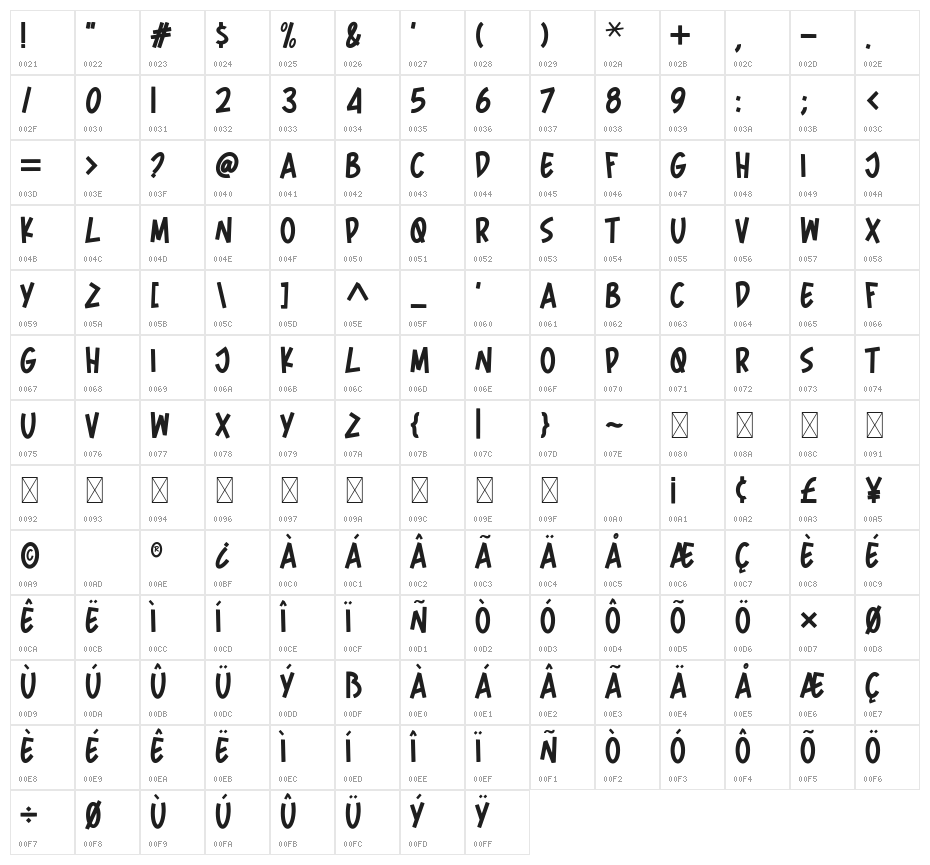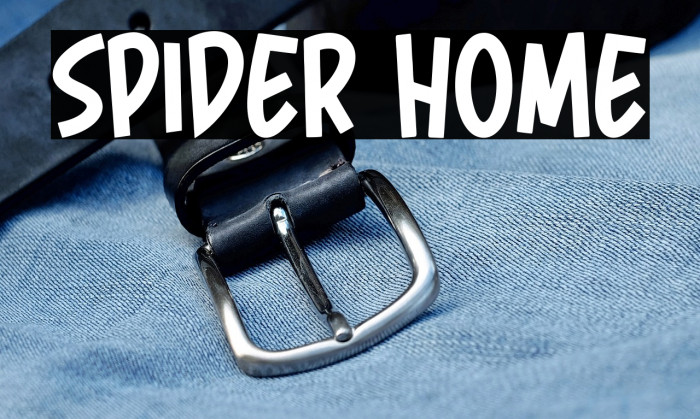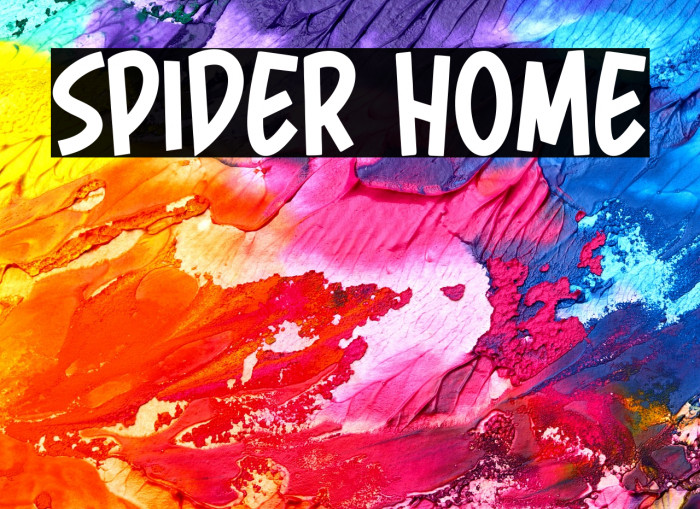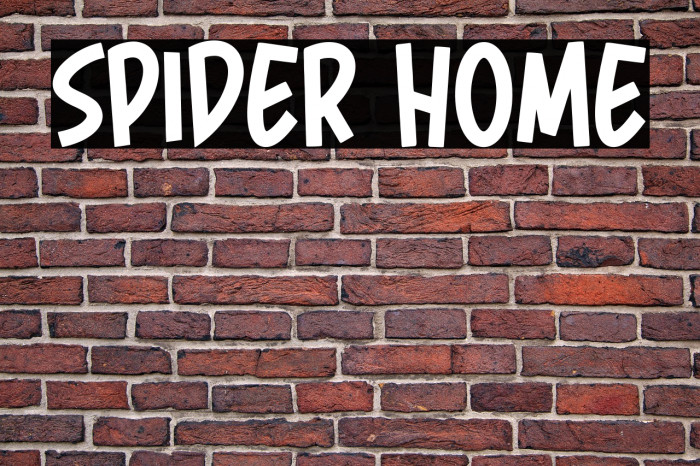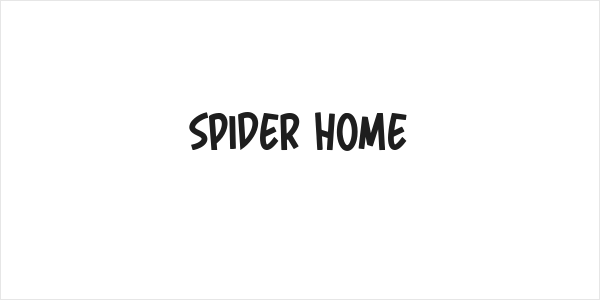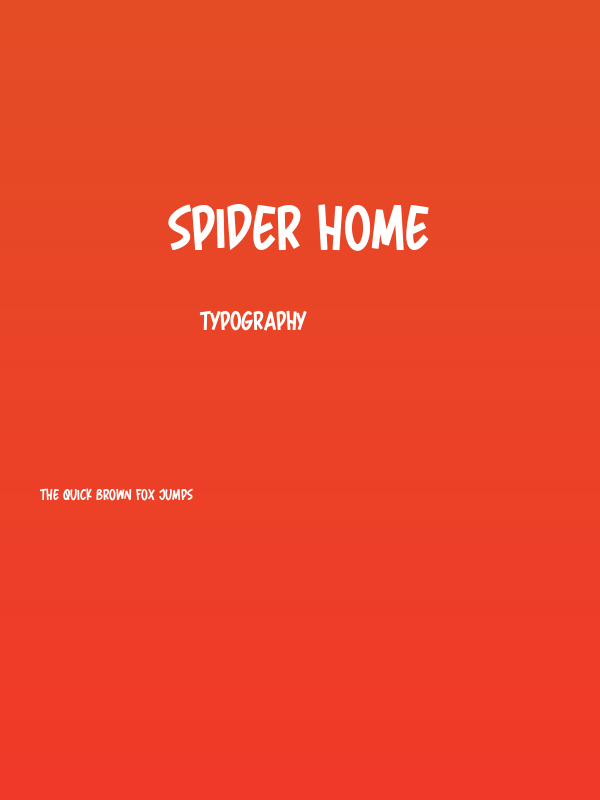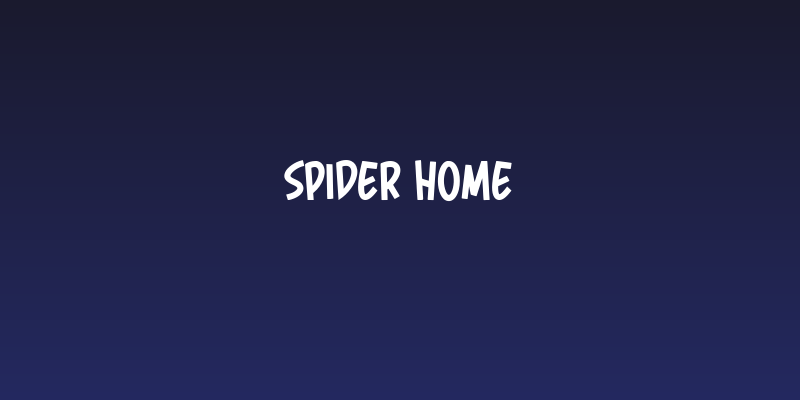
Spider Home Font
Spider Home Description
This font features a playful and dynamic style with bold, irregular strokes that give it a hand-drawn appearance. The letters are slightly tilted and vary in width, adding to the casual and informal feel. The uppercase and lowercase letters maintain a consistent style, with rounded edges and a slight slant. Numbers and special characters are designed to match the whimsical nature of the alphabet, making it suitable for creative and fun projects. The overall look is energetic and engaging, perfect for capturing attention.
| Proposed Projects | Ideal for comic books, children's books, posters, and playful branding. |